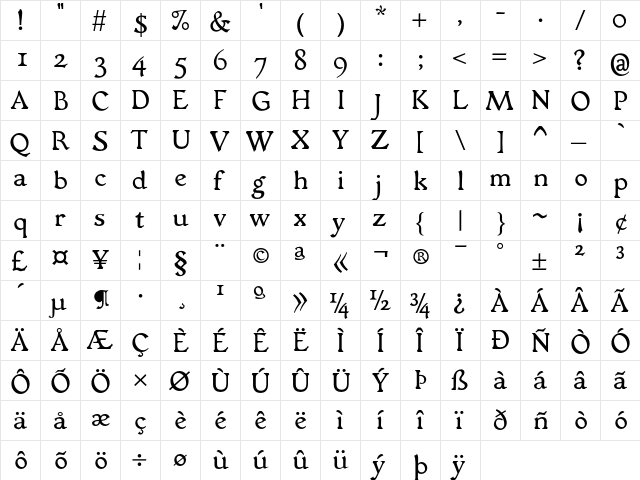
Datura Regular
| Foundry | Jesus Martinez Partida |
| Designer | Jesus Martinez Partida |
Design Context for Datura Typeface
Datura offers clean, dependable letterforms without strong stylistic allegiance, making it a practical choice for designers who need flexibility.